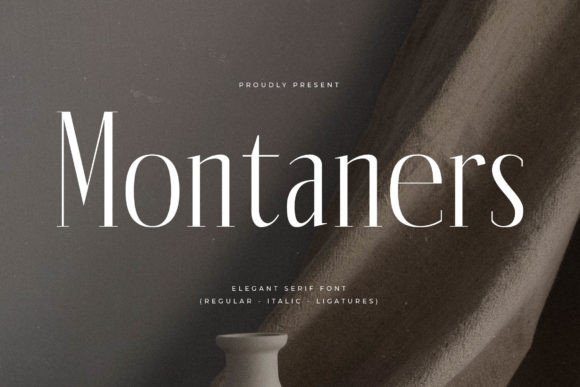
Embark on a Typographic Odyssey with Montaners: The Serif Font That Redefines Elegance and Modernity
In the realm of typography, Montaners emerges as a resplendent serif font, captivating the hearts of designers and typographers alike. Its meticulously crafted glyphs exude an aura of sophistication, resonating with elegance and a touch of contemporary flair. Let your creativity soar as you delve into the depths of this remarkable font family, meticulously designed by the visionaries at Storytype Studio.
Unleash the Allure of Montaners: A Font Family Steeped in Versatility
With Montaners, versatility is not merely a buzzword; it's a symphony of possibilities. This font family graces your designs with an air of refinement, whether you're crafting a compelling logo, a captivating book or movie title, or a fashion brand that radiates luxury. Its presence elevates magazines and clothing designs, breathes life into lettering and quotes, and transforms ordinary text into captivating narratives. Montaners is your muse, your artistic companion, guiding you toward typographic masterpieces.
Immerse Yourself in the World of Montaners: A Font That Embodies Elegance
Montaners beckons you to explore the world of elegance, where every letterform is a testament to grace and refinement. Its delicate serifs dance across the page, evoking a sense of timeless sophistication. With Montaners, your designs transcend the mundane, captivating audiences with an allure that is both understated and unforgettable. Whether you're a seasoned designer or a creative spirit just beginning your journey, Montaners will elevate your work to new heights of beauty and distinction.
Ignite Your Imagination with Montaners: A Font That Inspires Creativity
Montaners is more than just a font; it's a gateway to a world where creativity knows no bounds. Let your imagination run wild as you experiment with its diverse range of weights and styles. From delicate hairlines to bold, commanding strokes, Montaners grants you the freedom to express your unique vision. Whether you seek a classic aesthetic or a touch of contemporary edge, Montaners seamlessly adapts to your creative aspirations, transforming your designs into works of art.
Embrace the Legacy of Montaners: A Font Rooted in Timeless Beauty
With Montaners, you become part of a legacy of typographic excellence. Its roots lie in the traditions of classic serif fonts, yet it fearlessly embraces the modern era. Montaners is a font that stands the test of time, defying fleeting trends and remaining a cornerstone of design excellence. Its enduring beauty ensures that your creations will continue to captivate and inspire for generations to come.